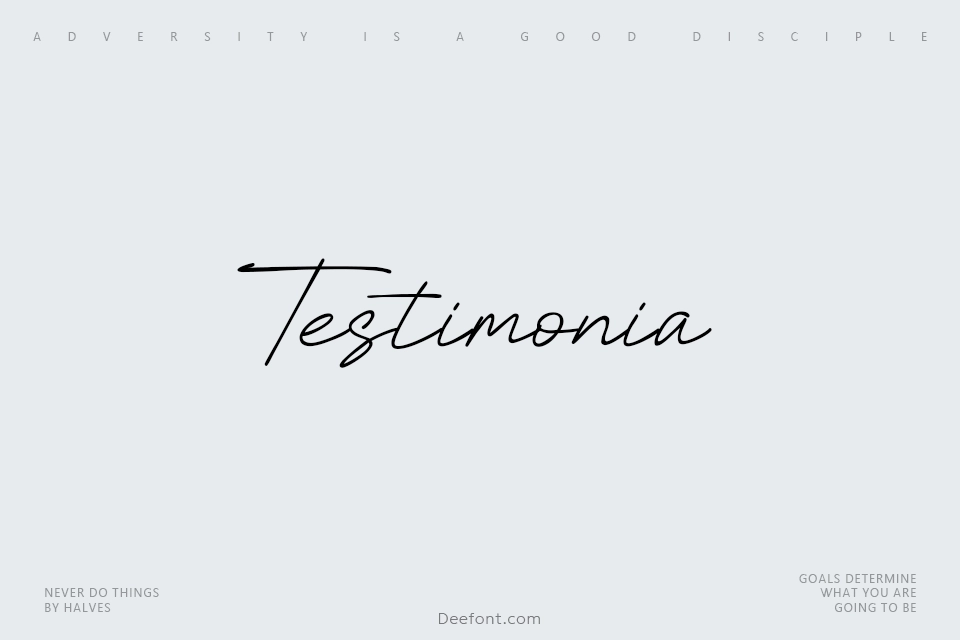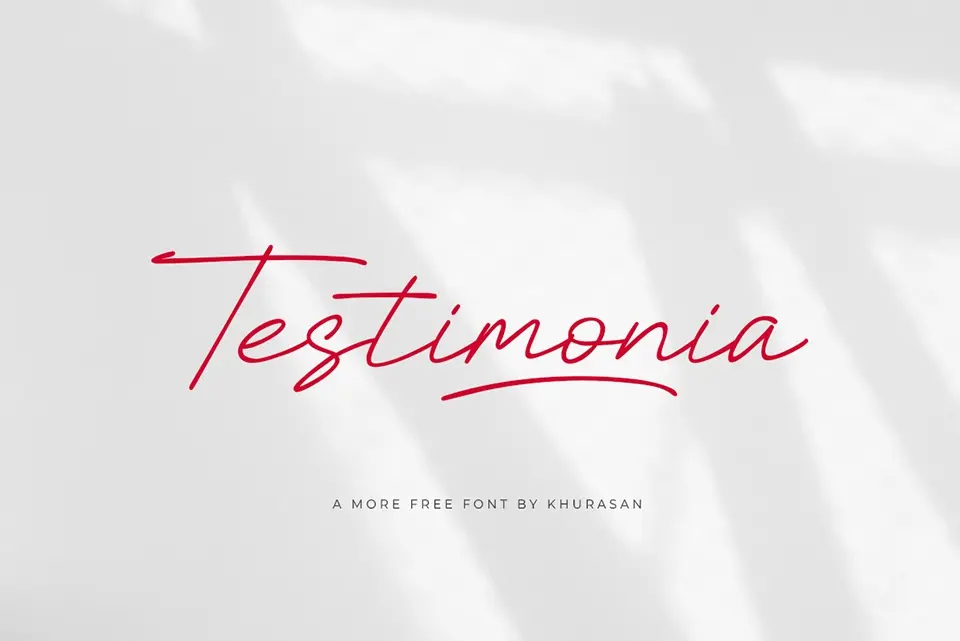
Testimonia Font
The Testimonia font delivers a handwritten script style full of character and personality. Crafted by Khurasan, this font is perfect for making invitations, greeting cards, branding, or any creative design that needs a personal, elegant handwritten touch. With its smooth curves and organic flow, Testimonia stands out in both digital and print projects. It is 100% free for both personal and commercial use, making it accessible for designers seeking versatile, high-quality script typography.